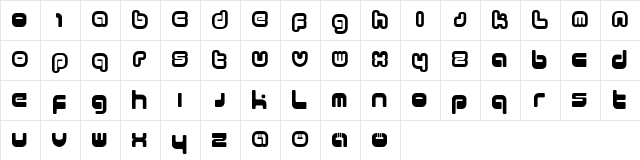
11.20 Regular
Design Context for 11.20
11.20 is a composed and adaptable typeface that performs quietly and consistently across a wide range of design contexts.